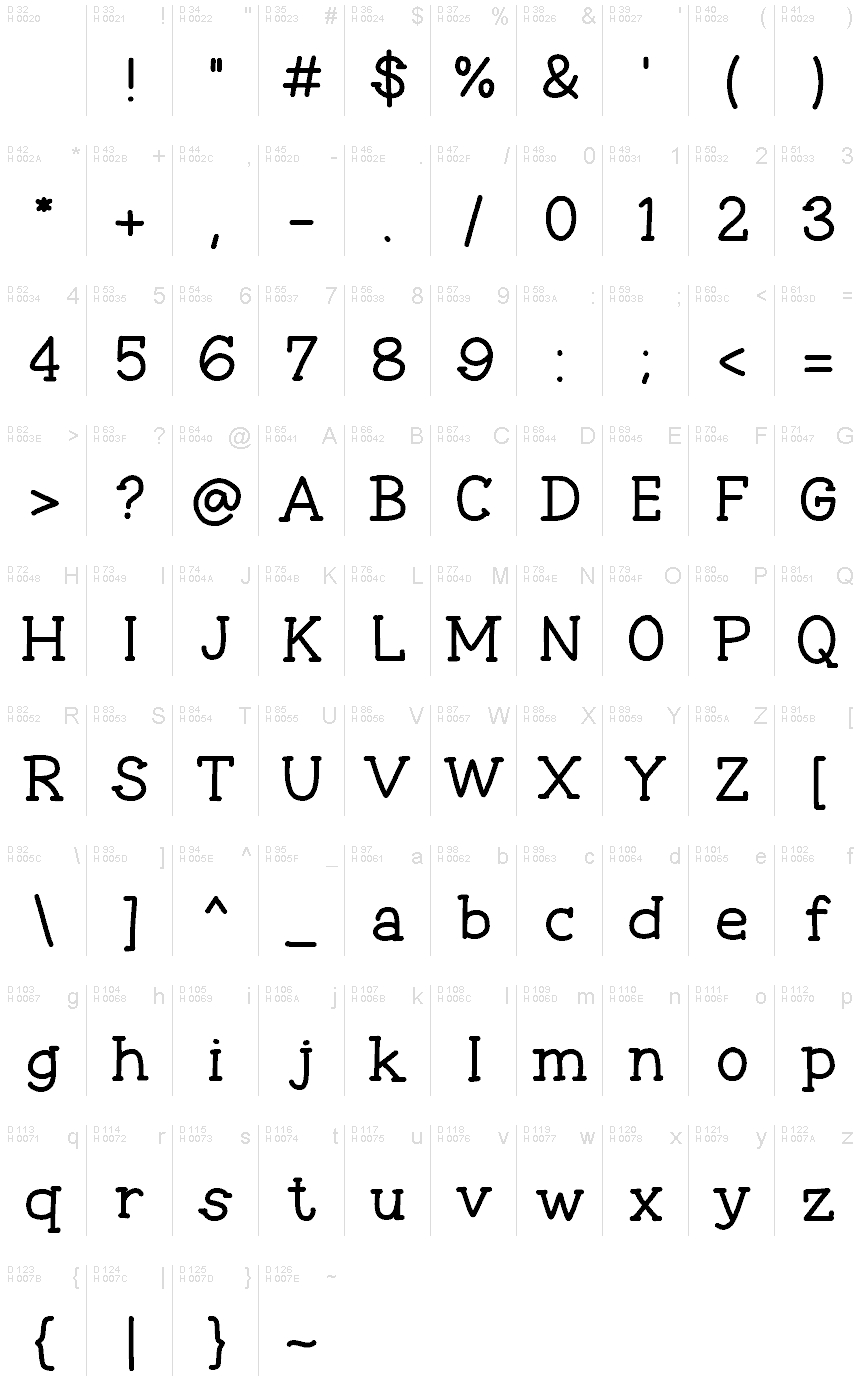
Duck Feet Regular
Duck Feet font by Rakuumon Studio is a display font with rounded serifs that seamlessly combine vintage charm and quirky character for a unique look. The free font features soft curves and an organic feel for an approachable aesthetic suitable for eye-catching designs without being overwhelming. The typeface remains readable even at smaller sizes but best works in larger typography.
Use Duck Feet in logos, posters, package design, social media posts, magazine covers, book covers, flyers, fashion projects, headlines typography, or body text typesetting. Its versatility allows it to elevate your work in advertising and personal projects alike.